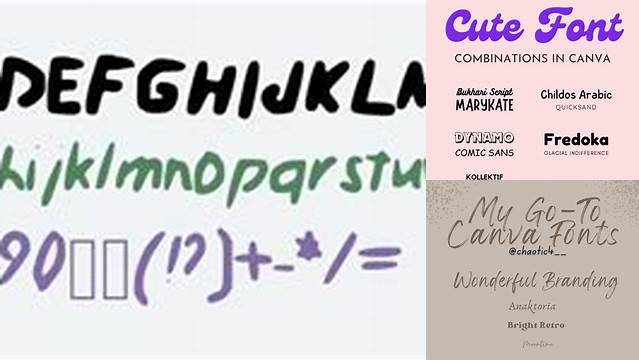
Canva Student Fonts: Free TTF Downloads
Hey guys! Ever find yourself needing the perfect font for a Canva project, especially when you're working on student stuff? Finding the right font can totally elevate your design, making it look professional and polished. But let's be real, hunting down free, high-quality fonts that work seamlessly with Canva can be a bit of a mission. So, let's dive into the world of Canva student fonts, where to snag those free TTF downloads, and how to make the most of them. Whether you're crafting a killer presentation, designing an eye-catching poster, or just trying to make your school projects pop, this guide's got you covered. Let’s get started!
Canva Fonts for Students: An Overview
When we talk about Canva fonts for students, we're really talking about a wide range of typefaces that are not only visually appealing but also suitable for academic and creative projects. Think about it: the font you choose can seriously impact how your work is perceived. A clear, readable font is crucial for essays and reports, while a more creative font can add flair to presentations and posters. Canva itself offers a ton of fonts, but sometimes you need something a little extra, something that truly reflects your style or the tone of your project. That's where external TTF (TrueType Font) downloads come in. These fonts can be installed on your computer and then uploaded to Canva, expanding your design possibilities. For students, this means having access to a broader palette of visual tools, helping you communicate your ideas more effectively and creatively. The key is to find fonts that are both free and licensed for commercial use, ensuring you're not running into any copyright issues. So, the next time you're staring at a blank canvas in Canva, remember that the right font can make all the difference in making your project shine. It's not just about aesthetics; it's about communication, clarity, and making a lasting impression.
Where to Find Free TTF Fonts for Canva
Okay, so you're on the hunt for free TTF fonts to use in Canva – awesome! The internet is a vast playground for font lovers, but it can also be a bit overwhelming. Let’s break down some fantastic places where you can discover those hidden gems. First up, websites like Google Fonts are a goldmine. Not only does Google Fonts offer a massive library of fonts, but they're all completely free and open source, meaning you can use them for personal and commercial projects without worry. The interface is super user-friendly too; you can filter fonts by category, style, and even thickness. Next, check out Font Squirrel. This site is dedicated to free, high-quality fonts that are also licensed for commercial use. They do a great job of curating fonts, so you're less likely to stumble upon low-quality options. Another great resource is DaFont. It has a huge collection of fonts, but you'll need to pay close attention to the licensing information for each font, as some are only free for personal use. Remember, you're looking for fonts that are free to use in your Canva projects, especially if they might be shared or used for something beyond your personal schoolwork. Don't forget to explore sites like Creative Fabrica and MyFonts, which often have free font sections or offer fonts as part of promotional deals. The key takeaway here is to always, always double-check the font license before you download and use it. This little bit of extra effort can save you from potential headaches down the road. Happy font hunting, guys!
Best Canva Fonts for Academic Projects
Alright, let's talk fonts! When it comes to academic projects, the fonts you choose can make a huge difference in how your work is perceived. You want something that's clear, readable, and professional-looking, but also has a bit of personality, right? Let's break down some of the best Canva fonts for different types of academic assignments. For essays and reports, you can't go wrong with classic serif fonts like Times New Roman, Garamond, or Georgia. These fonts are super readable in large blocks of text and give your work a polished, traditional feel. However, if you want something a bit more modern, consider using a sans-serif font like Helvetica, Arial, or Calibri. These fonts are clean and simple, making them great for online documents and presentations. When it comes to presentations, you have a bit more leeway to get creative, but readability is still key. Try fonts like Montserrat, Open Sans, or Lato. These sans-serif fonts are easy to read on screens and have a friendly, approachable vibe. For headings and titles, you can use something a bit bolder, like Bebas Neue or Oswald, to grab attention. Now, if you're working on a poster or infographic, you can really let your creativity shine. Experiment with different font pairings and styles to create a visually appealing design. For example, you could pair a bold display font like Impact or Anton with a clean sans-serif font like Roboto or Nunito for body text. Remember, the key is to choose fonts that complement each other and convey the right tone for your project. And don't be afraid to mix things up – just make sure your fonts are readable and don't clash with each other. Ultimately, the best Canva fonts for academic projects are those that help you communicate your ideas clearly and effectively.
Free Canva Fonts Similar to Popular Paid Fonts
Okay, let's talk about a little secret weapon for students on a budget: finding free Canva fonts that look super similar to those fancy, paid fonts. Sometimes you see a font and think, “Wow, that’s perfect!”... until you see the price tag. But don't worry, there are often free alternatives that can give you a similar vibe without breaking the bank. For instance, if you're loving the elegant look of fonts like Helvetica Neue (which isn't free), give Open Sans or Lato a try. These sans-serif fonts have a similar clean, modern feel and are available for free on Google Fonts. If you're after something similar to the classic Times New Roman but want a free option, Lora is a fantastic choice. It's a well-designed serif font that's super readable and perfect for essays and reports. Another popular paid font is Gotham, known for its bold, geometric look. If you're looking for a free alternative, Montserrat is a great option. It has a similar style and is widely used in web design and branding. For those who love the sophisticated look of fonts like Garamond, EB Garamond is a free and open-source alternative that's worth checking out. It has a classic, elegant feel that's perfect for more formal projects. And if you're a fan of the trendy, hand-lettered look but don't want to pay for a font like Brandon Grotesque, try Raleway. It's a versatile sans-serif font that has a slightly softer, more rounded feel. The trick to finding these free alternatives is to identify the key characteristics of the paid font you like – is it serif or sans-serif? Bold or light? Modern or traditional? – and then search for free fonts with similar qualities. Websites like Google Fonts and Font Squirrel have great filtering options that can help you narrow down your search. So, next time you're drooling over a pricey font, remember that there's probably a free twin out there waiting to be discovered. You just need to do a little digging!
Using TTF Fonts for Canva Student Projects
So, you've got your TTF fonts downloaded, installed, and uploaded to Canva – awesome! Now, let's talk about how to actually use these fonts to make your student projects shine. The key here is to think strategically about how fonts can enhance your message and make your work more visually appealing. For starters, consider the type of project you're working on. Is it a formal research paper, a creative presentation, or a fun poster? The font you choose should match the tone and style of the project. For academic papers, stick with classic, readable fonts like Times New Roman, Garamond, or a clean sans-serif like Arial or Helvetica. These fonts are professional and won't distract from your content. For presentations, you have a bit more freedom to experiment, but readability is still crucial. Choose fonts that are easy to read on a screen, like Open Sans, Lato, or Montserrat. You can also use a bolder font for headings to grab attention. When it comes to posters and infographics, you can really let your creativity run wild. Try pairing different fonts to create visual interest, but make sure they complement each other. For example, you could pair a bold display font like Bebas Neue or Oswald with a simpler sans-serif font for body text. Another important tip is to limit the number of fonts you use in a single project. Too many different fonts can make your design look cluttered and unprofessional. Stick to two or three fonts at most, and use them consistently throughout your project. Also, pay attention to font size and spacing. Make sure your text is large enough to read easily, and adjust the line spacing and letter spacing to improve readability. And finally, don't be afraid to experiment! Try out different fonts and font combinations to see what works best for your project. Canva makes it super easy to preview fonts, so have fun and get creative. With a little practice, you'll be a font master in no time!
Troubleshooting Font Issues in Canva
Okay, let's be real – sometimes things don't go as smoothly as we'd like, and you might run into some font issues in Canva. But don't worry, we're here to troubleshoot and get you back on track. One common issue is that your newly uploaded font doesn't appear in Canva's font list. This can be frustrating, but there are a few things you can try. First, make sure you've actually uploaded the font correctly. Go back to the “Upload a font” option in the font dropdown menu and double-check that you selected the right TTF file. Also, give Canva a few minutes to process the font after uploading. Sometimes it takes a little time for the font to become available. If the font still isn't showing up, try refreshing your browser or clearing your browser's cache and cookies. This can often resolve minor glitches and ensure that Canva is loading the latest version of the font list. Another potential issue is that the font looks different in Canva than it does on your computer. This can happen if Canva doesn't fully support a particular font's features or if there's a compatibility issue. In this case, you might want to try using a different font or simplifying the text formatting. Sometimes, fonts can also appear blurry or pixelated in Canva, especially if they're used at a very large size. To fix this, try using a higher-resolution version of the font if one is available, or reduce the font size slightly. If you're still having trouble, Canva's help center is a great resource for troubleshooting font issues. You can also reach out to Canva's support team for assistance. And remember, technology can be finicky sometimes, so don't get discouraged! With a little patience and persistence, you'll be able to overcome those font hurdles and create amazing designs.
Legality of Using Free Fonts in Canva Projects
Let’s dive into a super important topic: the legality of using free fonts in Canva projects. This might seem a bit dry, but trust me, it's crucial to understand the rules of the road when it comes to fonts. Basically, not all free fonts are created equal, and not all of them can be used for every type of project. The key thing to pay attention to is the font license. A font license is like a permission slip that tells you how you can and can't use a particular font. Some fonts are free for personal use only, meaning you can use them for things like school projects or personal designs, but not for commercial purposes (like selling a design you created with the font). Other fonts have licenses that allow for commercial use, meaning you can use them in projects that you sell or use for business purposes. A great example of fonts with commercial licenses is the fonts available on Google Fonts. All the fonts on Google Fonts are open source, which means they can be used for both personal and commercial projects without any restrictions. Sites like Font Squirrel also offer fonts with commercial licenses, making them a safe bet for your Canva projects. However, other font websites might have a mix of licenses, so it's always essential to check the license for each font before you download and use it. Look for terms like “free for commercial use,” “open source,” or “100% free.” If you're not sure about a font's license, it's always best to err on the side of caution and choose a different font. Using a font without the proper license can lead to legal issues down the road, which is definitely something you want to avoid. So, do your homework, read those licenses, and make sure you're playing by the rules. It's a small effort that can save you a lot of headaches in the long run.
Exporting Canva Designs with Embedded Fonts
Let's talk about a crucial step in the Canva design process: exporting Canva designs with embedded fonts. This is super important, especially if you're sharing your designs with others or using them for professional purposes. Embedding fonts ensures that your designs will look exactly as you intended, regardless of whether the recipient has the same fonts installed on their computer. So, what does it mean to embed fonts? Basically, it means including the font files within your exported design file, so the fonts are always available, even if they're not installed on the viewing device. This prevents the dreaded font substitution issue, where your carefully chosen fonts are replaced with generic ones, completely changing the look and feel of your design. So, how do you export Canva designs with embedded fonts? Well, the good news is that Canva usually handles font embedding automatically when you export your designs as a PDF. This is the recommended format for sharing designs that need to maintain their visual integrity, such as presentations, documents, or print-ready files. To export your Canva design as a PDF, simply click on the